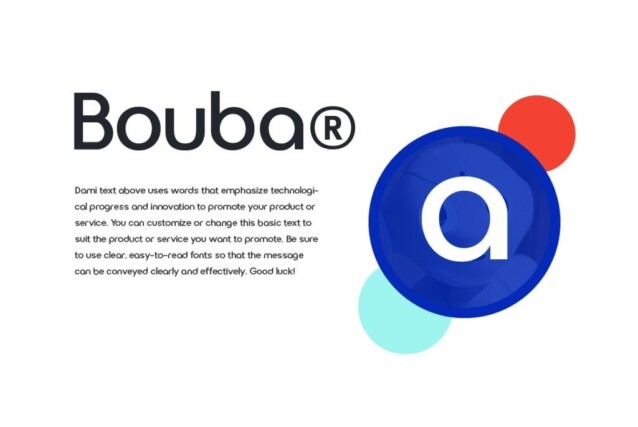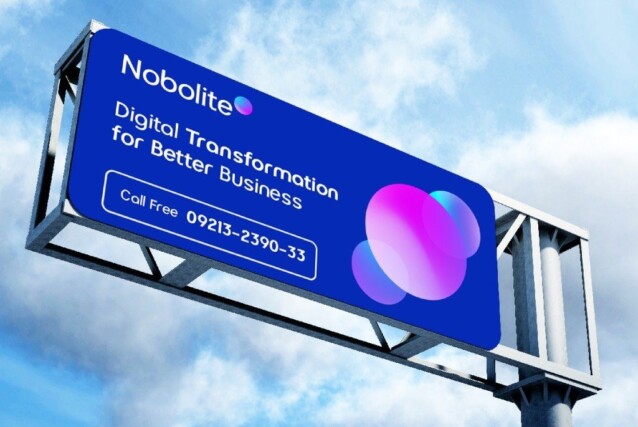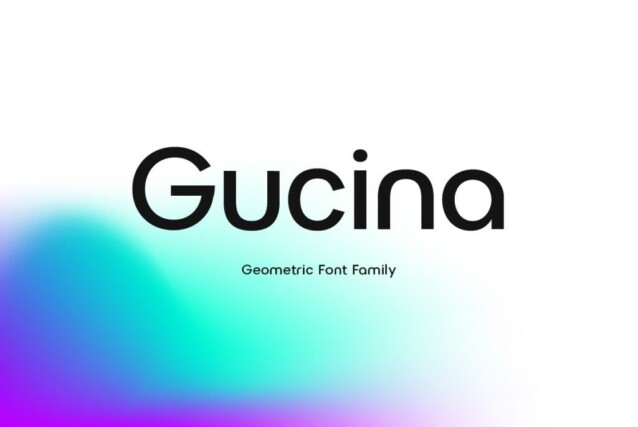
Gucina Font is a simple geometric sans serif font, perfect for digital note-taking. With its clean lines and geometric shapes, this font type is perfect for creating minimalistic logos, advertisements, web designs, and branding materials.
The Gucina Geometric Font Family comes in a variety of weights, making them ideal for a variety of design projects. Whether you need a bold